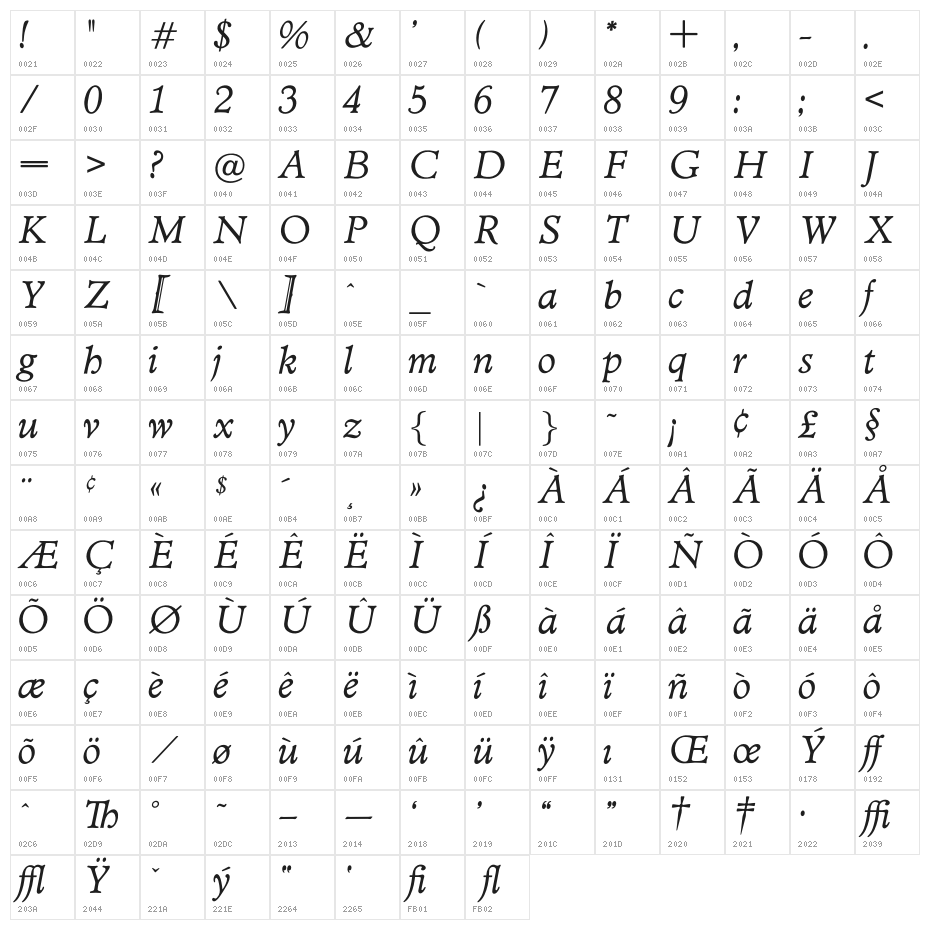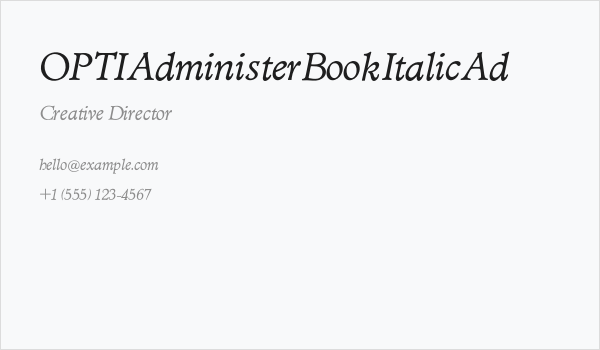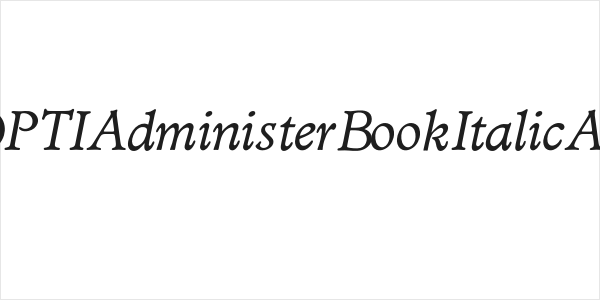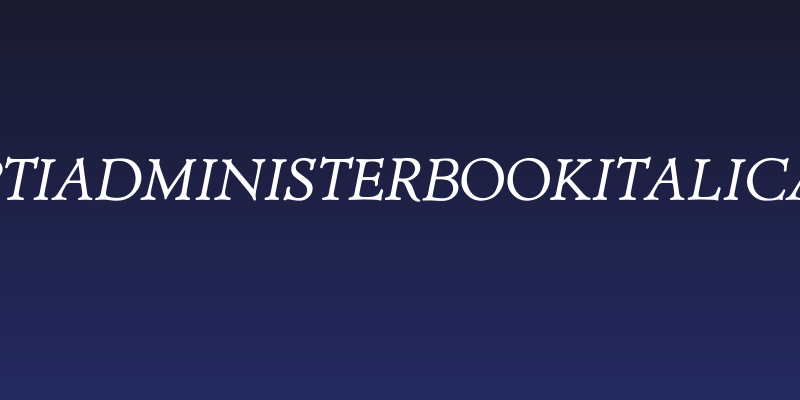
OPTIAdministerBookItalicAd Font
OPTIAdministerBookItalicAd Description
This font features a classic serif style with elegant, flowing lines that give it a sophisticated and timeless appearance. The italicized form adds a sense of movement and grace, making it suitable for formal and refined applications. The uppercase letters are well-proportioned, with a slight slant that enhances readability while maintaining a stylish look. The lowercase letters are distinct and legible, with smooth curves and subtle serifs that add to the overall elegance. The numerals are clear and consistent, matching the style of the alphabetic characters. Special characters are well-integrated, maintaining the font's cohesive aesthetic.
| Proposed Projects | Ideal for use in formal invitations, elegant branding, book covers, and editorial design. |